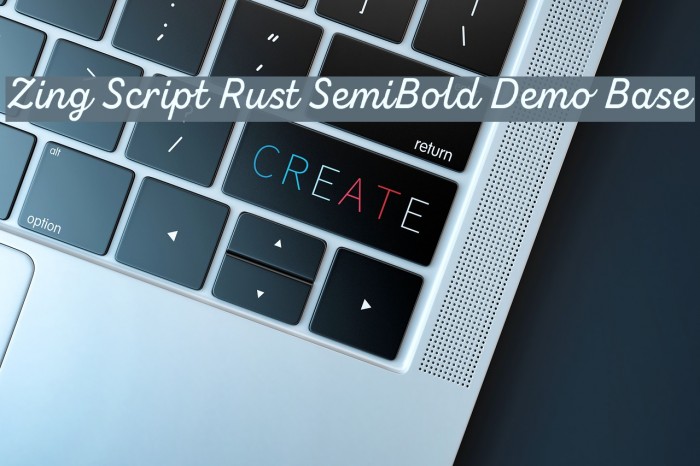
This incredible font family has 5 different weights and three different texture effects which makes it perfect for setting great layouts, headlines, logotypes.
It was completely made using a tablet to imitate casual and neat.
Zing Script Rust Semibold Demo Base Font Ffonts Net. Zing rust demo base version: As its name refers zing rust stands for the vital freshness of your ideas and. Zing easy by jonathan s. 217+ results for zing script. You may use this version of 'zing easy' for personal use only but if you wish to use it commercially you will need to purchase a license. ◄ go back to free fonts. Base, script & sans + textures! Download the zing easy font by jonathan s. Zing script rust r base g. This incredible font family has 5 different weights and three different texture effects which makes it perfect for setting great layouts, headlines, logotypes. 100% zing rust—521 fonts in a bundle! Zing rust™ is an extremely huge package of outstandingly handmade 521 fonts! Supports extended latin & cyrillic—get your 6 free fonts @ fontfabric.com today. The zing easy font has been downloaded 62,374 times. Zing rust demo font subfamily identification:
Каллиграфические и скриптовые шрифты с кириллицей. Script font is a broad style that refers to any typeface that looks like it was drawn by hand. 100% zing rust—521 fonts in a bundle! Zing rust demo font subfamily identification: You may use this version of 'zing easy' for personal use only but if you wish to use it commercially you will need to purchase a license. 217+ results for zing script. Шрифт wild flower script cyrillic. Zing rust demo base version: This incredible font family has 5 different weights and three different texture effects which makes it perfect for setting great layouts, headlines, logotypes.